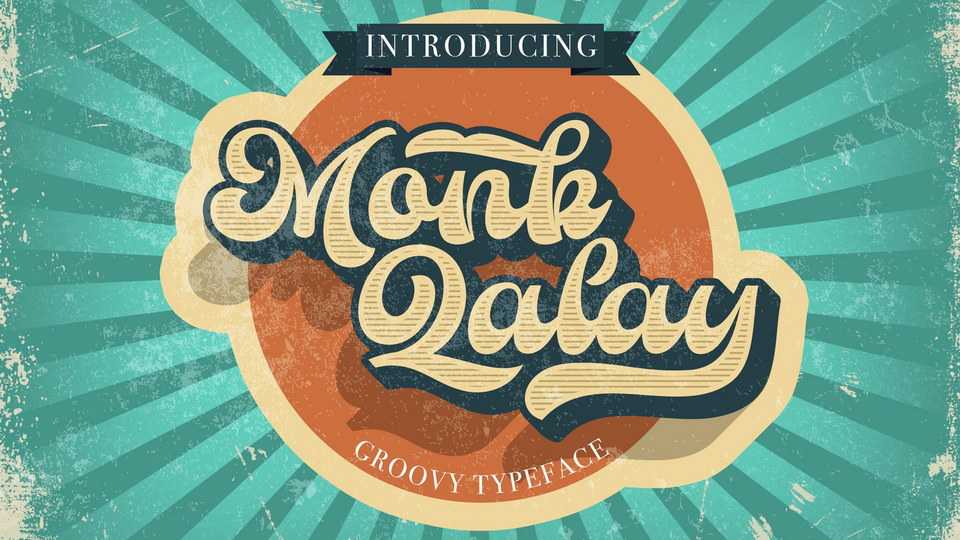
Download Monk Qalay font, a typeface inspired by the design styles of the 70s. Monk Qalay has a funny, groovy, classic, not serious style but aesthetic and unique value.